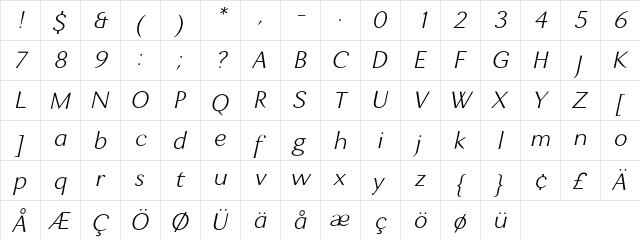
Enzia Light Italic Font Preview
Enzia Light Italic
Design Context for Enzia Typeface
Enzia is a composed and adaptable typeface that performs quietly and consistently across a wide range of design contexts. The dynamic lean of this cut emphasises speed and emphasis in any layout. The delicate stroke weight brings airiness and refinement to layouts.
Pro Tip: Use Enzia for emphasis, pull quotes, and subheadings where its slanted energy can add rhythm to the layout.